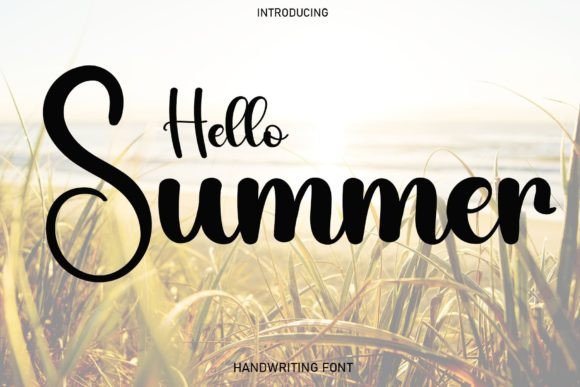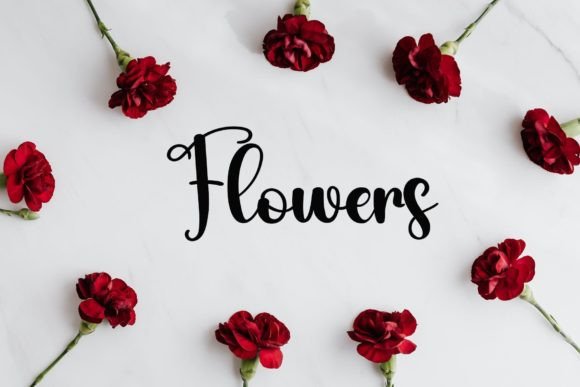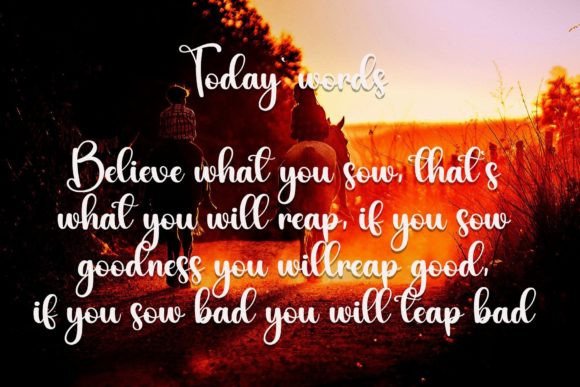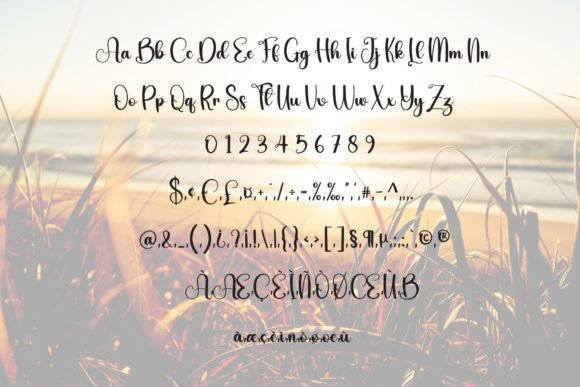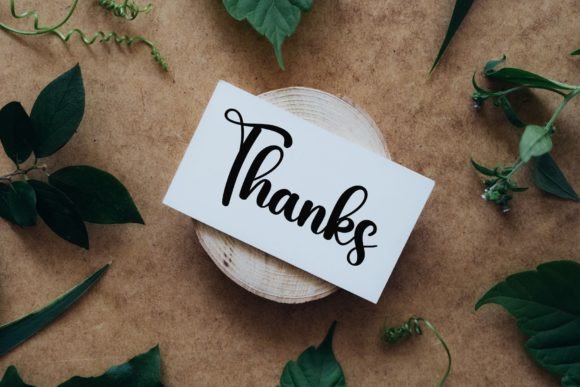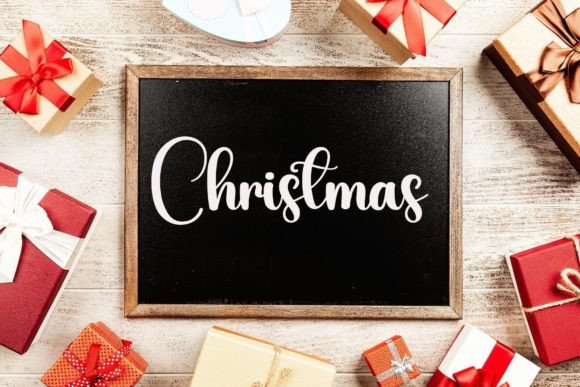
Hello Summer Font
About Hello Summer Font
**Hello Summer: Where Fun Meets Friendliness**
In the realm of fonts, where creativity knows no bounds, “Hello Summer” emerges as a fun and friendly handwritten font, radiating an infectious energy that encapsulates the essence of summer. More than just a collection of letters, “Hello Summer” is a vibrant celebration of warmth, joy, and camaraderie. Its playful charm and friendly demeanor transform mundane design ideas into vibrant masterpieces, making it the perfect choice for infusing your creations with the spirit of summer.
**The Playful Charm of Summer:**
“Hello Summer” exudes a playful charm that instantly transports you to the sun-kissed days of summer. Its carefree strokes and whimsical curves reflect the spontaneity and joy of the season. The font’s playful energy is contagious, bringing a sense of fun and enthusiasm to every design it graces. Whether used for social media posts, greeting cards, posters, or branding, “Hello Summer” infuses your projects with a lively spirit that captivates hearts.
**A Friendly Companion:**
What sets “Hello Summer” apart is its inherent friendliness. The font feels like an old friend, approachable and warm, making it easy for your audience to connect with your message. Its handwritten style adds a personal touch, making viewers feel like they’re reading a note from a friend. This friendly demeanor establishes an instant rapport, ensuring that your designs resonate with authenticity and sincerity.
**Inspiring Unique Designs:**
“Hello Summer” is not just a font; it’s a wellspring of inspiration waiting to be tapped. Its unique charm ignites your creative imagination, urging you to explore new design avenues. Whether you’re crafting summer-themed invitations, refreshing social media posts, or vibrant posters, this font breathes life into your ideas, transforming them into lovely and captivating designs that leave a lasting impression.
**Turning Ideas into Masterpieces:**
With “Hello Summer” as your creative ally, you have the power to turn every design idea into a true standout. Its fun and friendly nature infuses your projects with an irresistible allure, making them impossible to ignore. The font becomes a catalyst, encouraging you to embrace the spirit of summer and infuse your creations with the same infectious enthusiasm that defines the season.
**Conclusion:**
“Hello Summer” is more than just a font; it’s a spirited companion that brings the essence of summer to your designs. Its fun, friendly, and playful nature elevates every project it touches, ensuring that your creations stand out with vibrancy and charm. Let “Hello Summer” be your creative muse, and watch as it transforms your ideas into lovely designs that capture the essence of sun-soaked days, laughter, and endless joy.